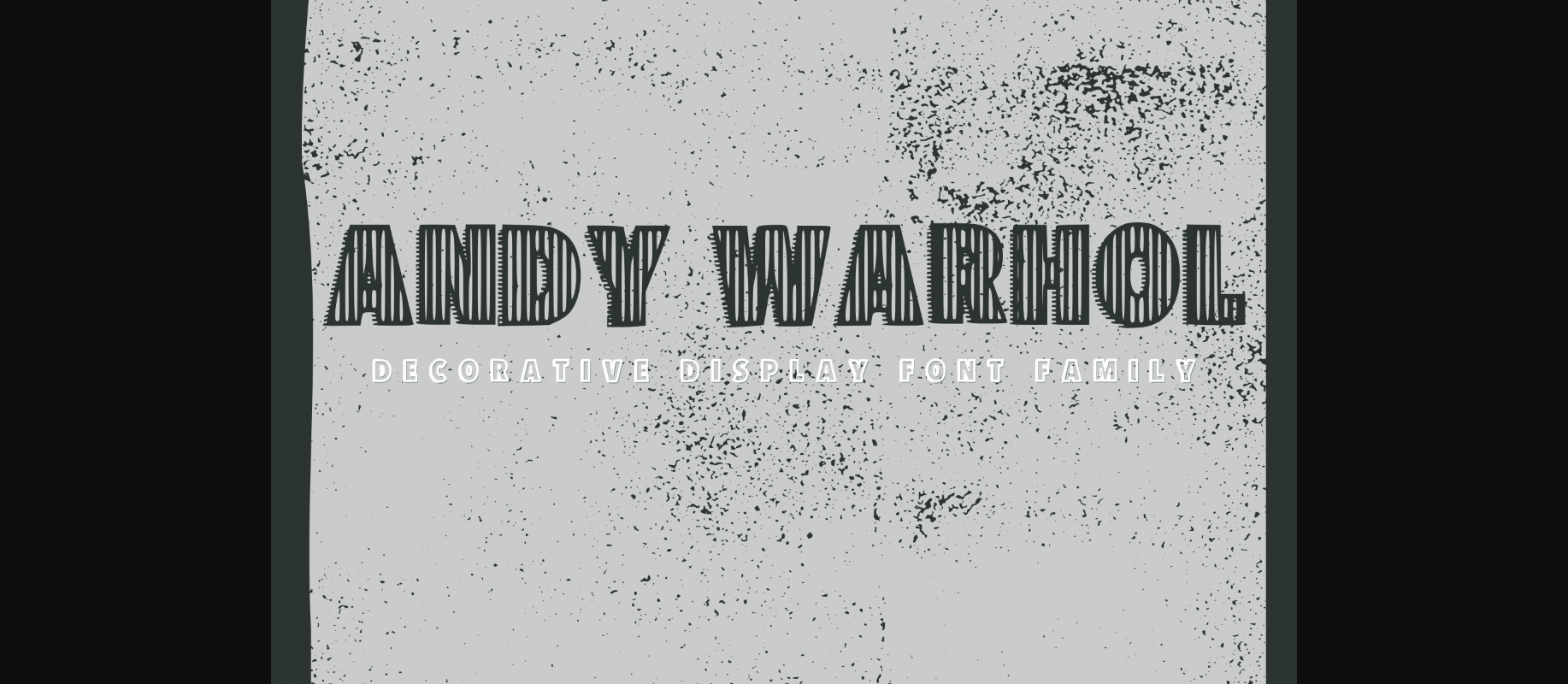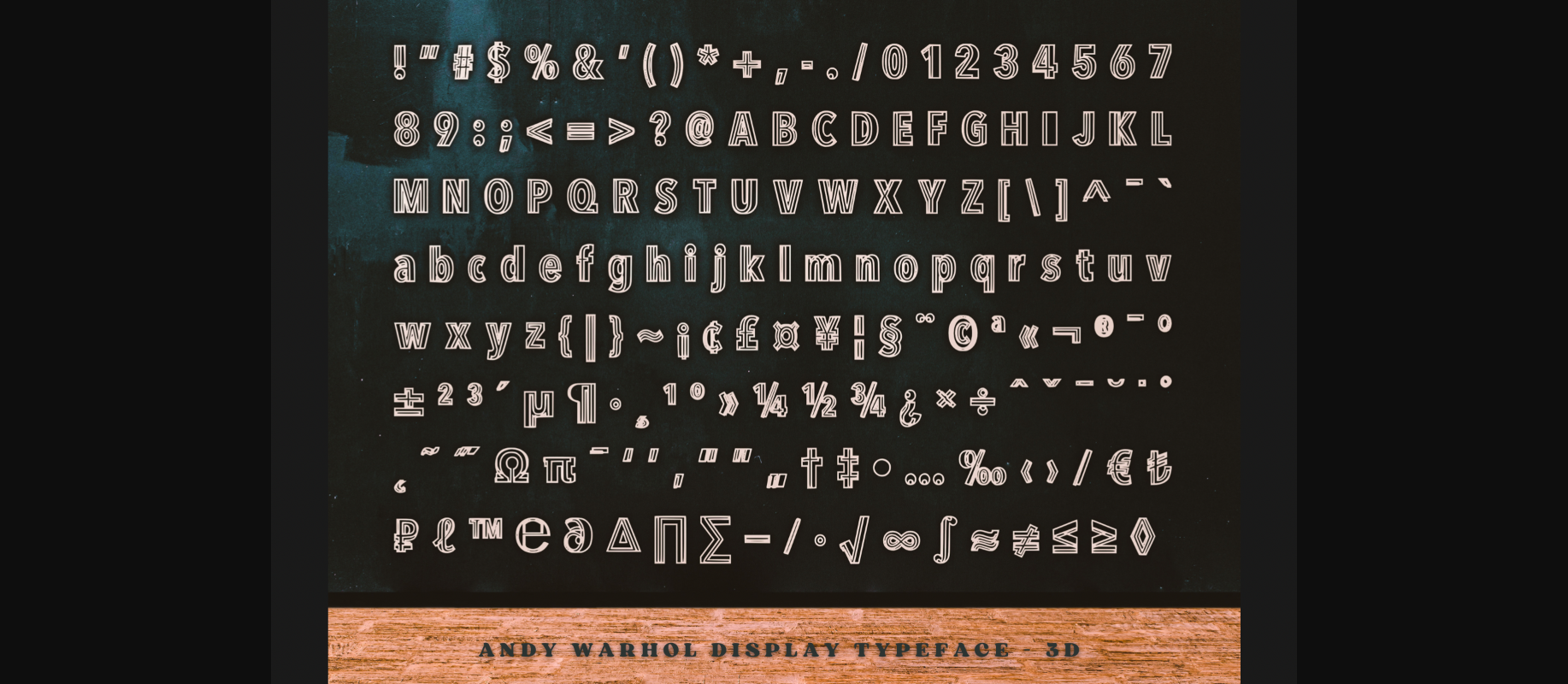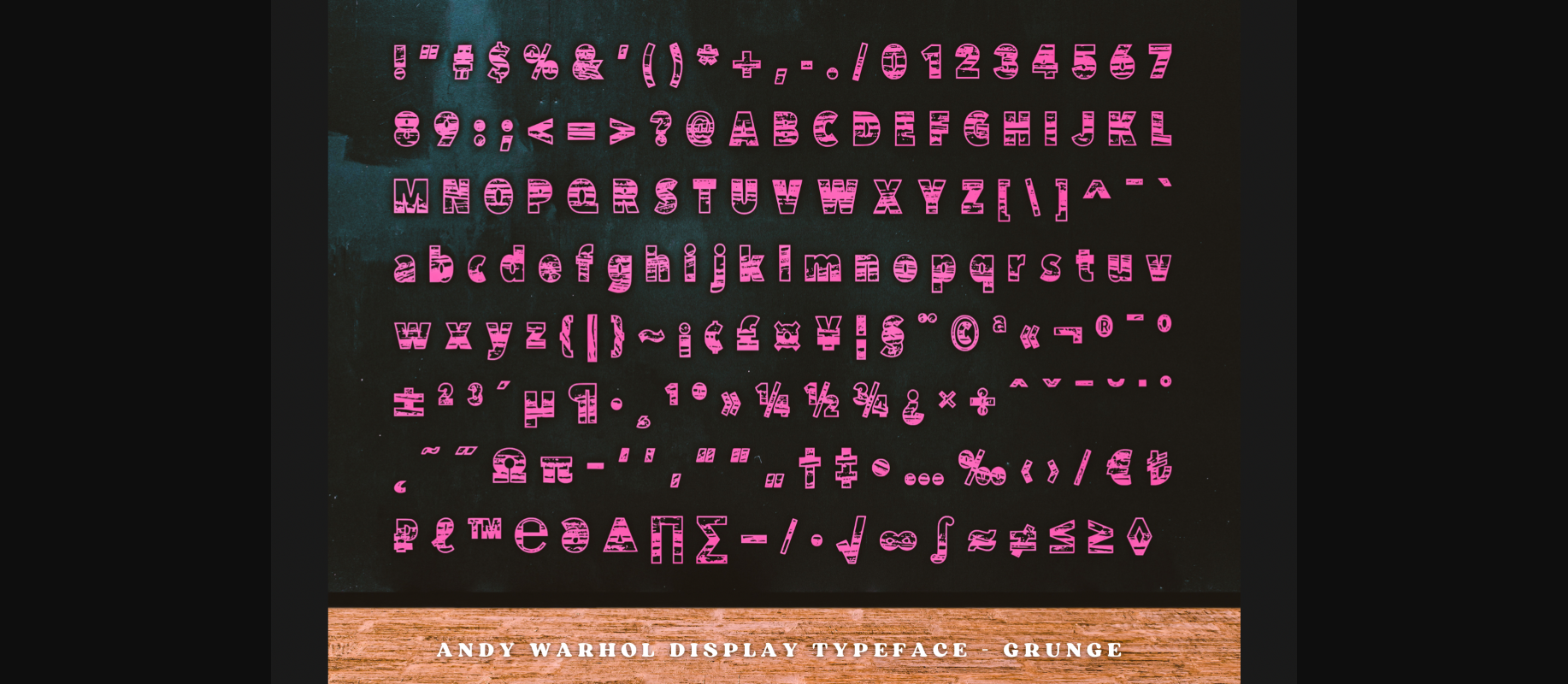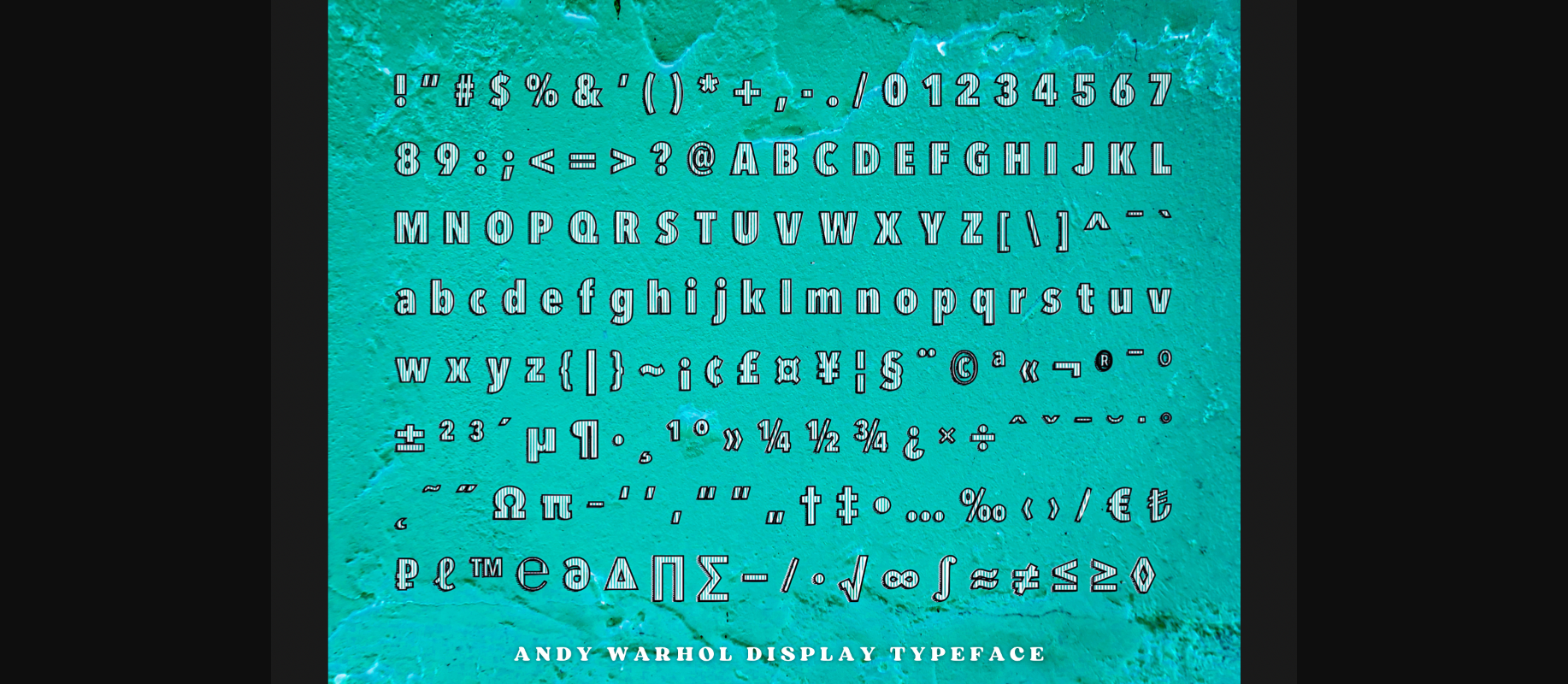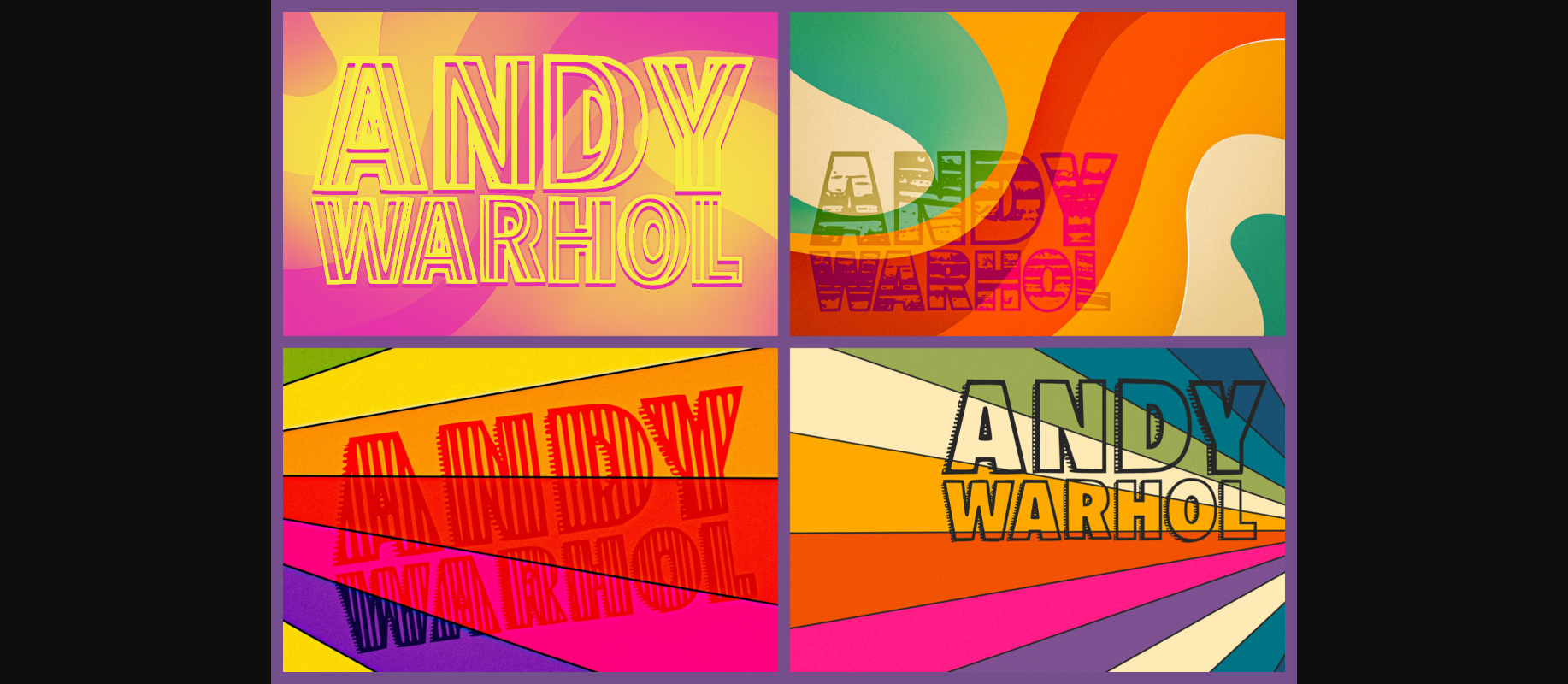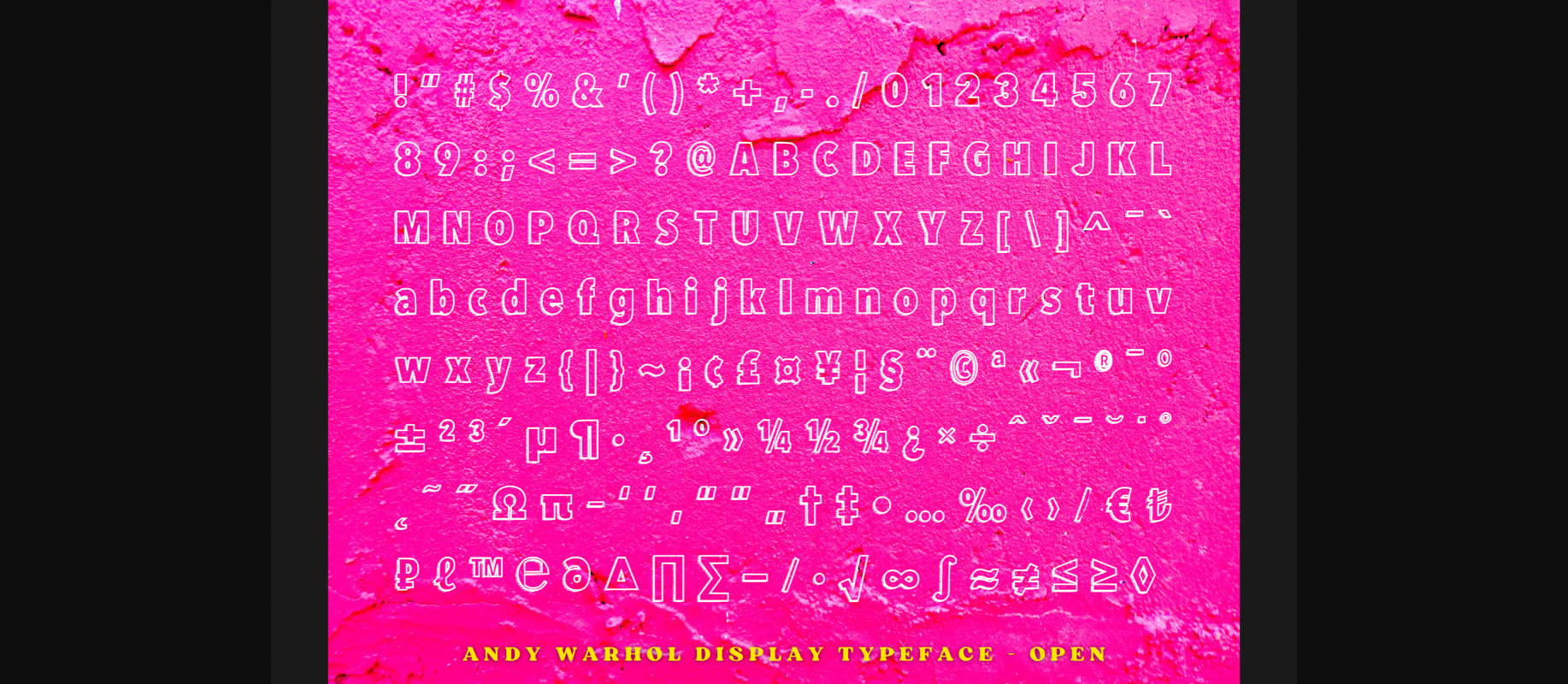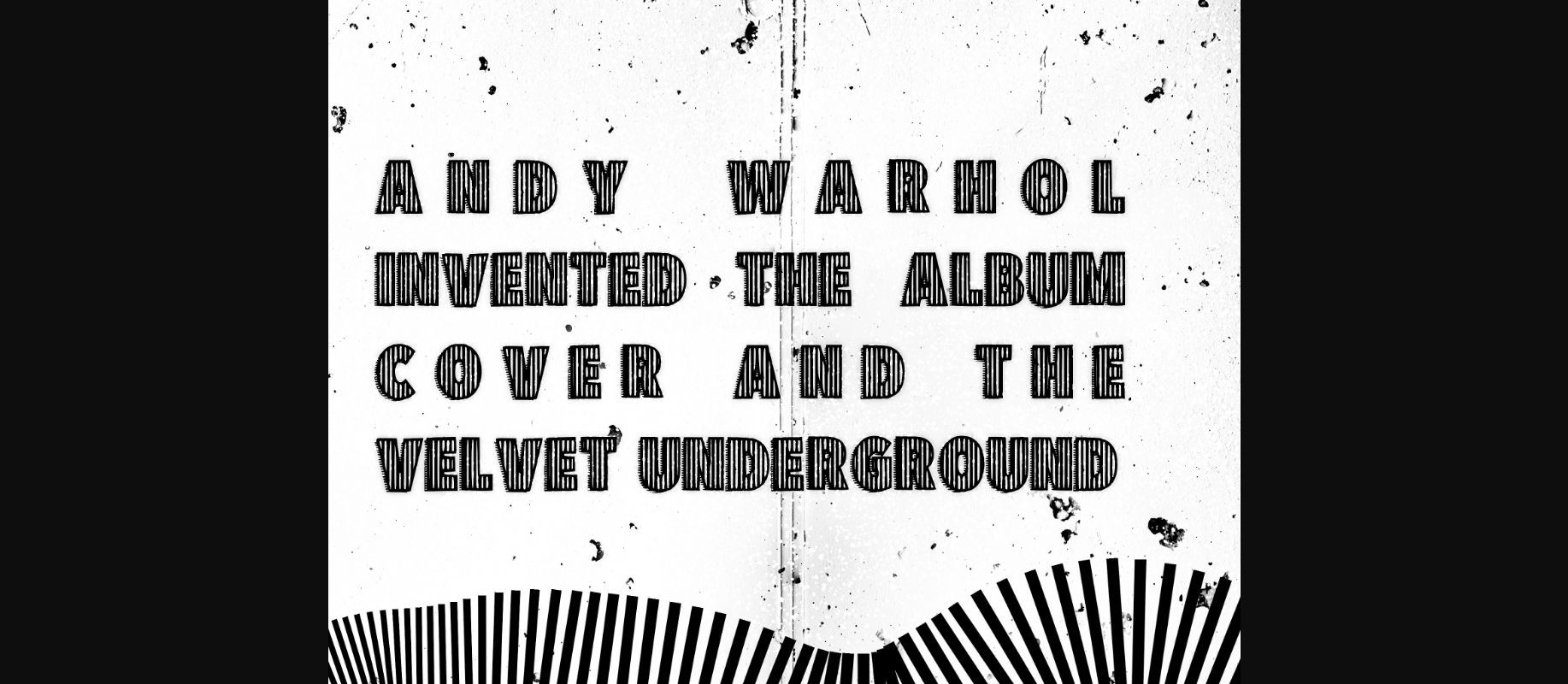
HomeDecorative FontsAndy Warhol Font Decorative Fonts Andy Warhol Font FacebookXPinterestWhatsApp 1 of 9 ... Andy Warhol Font Poster 2... Andy Warhol Font Poster 3... Andy Warhol Font Poster 4... Andy Warhol Font Poster 5... Andy Warhol Font Poster 6... Andy Warhol Font Poster 7... Andy Warhol Font Poster 8... Andy Warhol Font Poster 9... About Andy Warhol Font Andy Warhol is an original and bold decorative font. This versatile script font has a wide spectrum of applications ranging from greeting cards to headlines and is guaranteed to add a cool feel to your next project. DOWNLOAD NOW People also explored Tiny Lemon Font Antonellie Font Queasily Font Miss Love Just for a While Font Grade Monogram Font Night Time Story Font Magical Candy Font Black Slice Font 960 0 TagsAndy Warhol Font Previous articleHound Stooth FontNext articleThe Great Craftsman Font LEAVE A REPLY Cancel reply Comment: Please enter your comment! Name:* Please enter your name here Email:* You have entered an incorrect email address! Please enter your email address here Website: Save my name, email, and website in this browser for the next time I comment. Personal Use Free Blessed Font Personal Use Free Read more about this font Sebastopol Personal Use Free Read more about this font Open Heart Personal Use Free Read more about this font DoooLA Personal Use Free Read more about this font BLOG How to Install and Use Fonts on Windows, macOS, and Web Projects How to Install and Use Fonts on Windows, macOS, and Web Projects Fonts are a crucial part of design and branding. Whether you’re designing a... Transform Your Website: Elevate Your Typography with 7 Best Web Font Generators Where to Buy American Fonts Online in 2024 Top 7 Google Fonts Alternatives for Faster and Privacy-Friendly Web Design (2025)